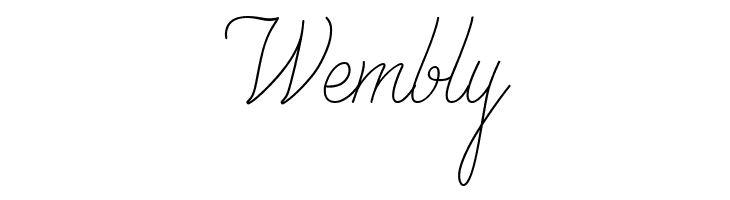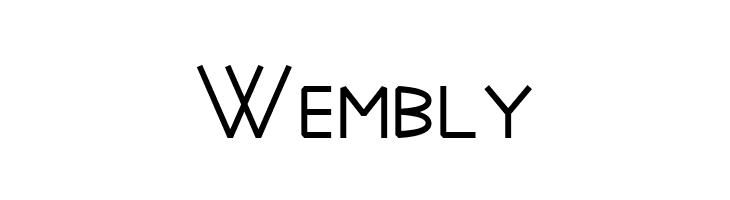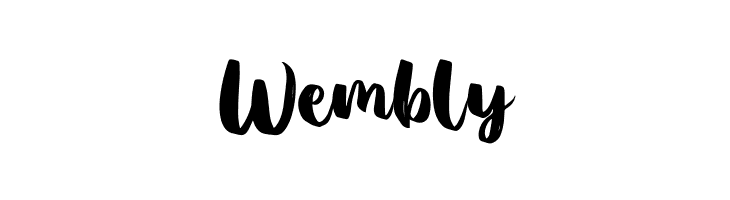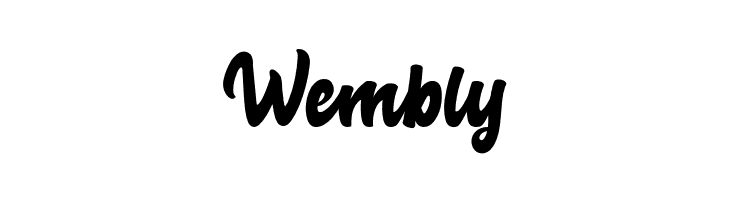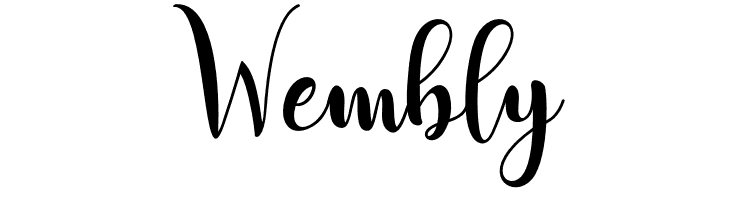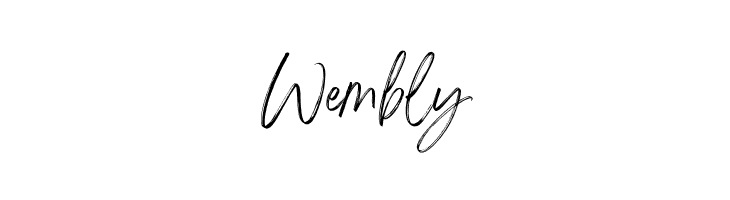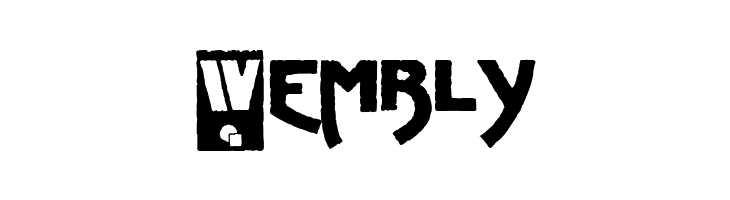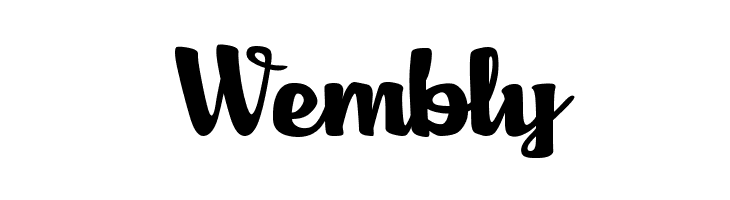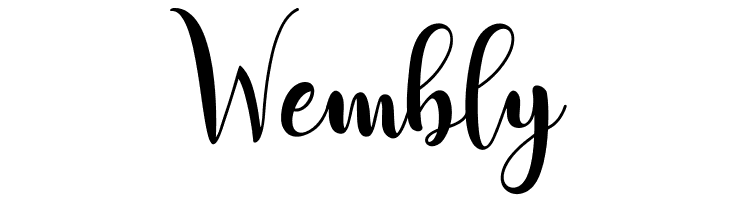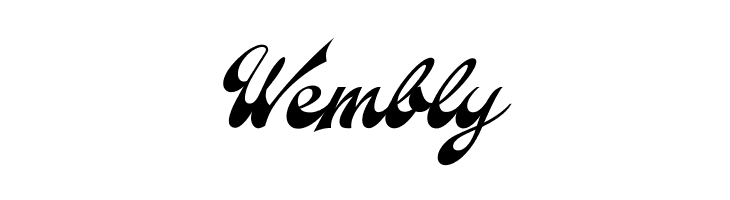
A bold, expressive script font with flowing, cursive letterforms and dramatic flourishes.
A graceful and sophisticated script font with flowing, interconnected letters.
A flowing, cursive script font with elegant loops and swashes.
An elegant script font with flowing, decorative strokes.
A bold, flowing script font with elegant curves and playful loops.
A bold, playful script font with smooth curves and dynamic flow.
A bold, geometric font with a blocky, digital style.
A flowing, cursive script font with elegant, connected characters.
A bold, playful italic font with rounded, flowing forms and a vintage flair.
A bold, playful font with rounded, thick strokes and a whimsical style.
A bold, gothic-inspired font with sharp, angular edges and high contrast.
A bold, dynamic script font with elegant, flowing cursive letterforms.
A graceful monoline script font with a handwritten style.
A bold, elegant script font with flowing, connected characters.
A bold, flowing script font with elegant curves and connected strokes.
A bold, modern sans-serif font with clean lines and balanced spacing.
A bold, flowing script font with elegant curves and dramatic swashes.
A bold, expressive handwritten font with a playful and artistic style.
A graceful and flowing script font with elegant curves.
A casual, handwritten script font with fluid strokes and medium contrast.
A sophisticated and elegant script font with flowing, cursive letters.
An expressive, script-like font with a dynamic, hand-drawn appearance.
An elegant and artistic script font with flowing, intricate letterforms and decorative flourishes.
A futuristic, geometric font with bold, angular letterforms.
A graceful script font with flowing, cursive letters and elegant swirls.
A playful, hand-drawn font with bold, dynamic characters.
A bold, expressive handwritten font with dynamic brush strokes.
Casual, artistic handwritten script font.
A bold, brush-style font with dynamic, hand-painted strokes.
A flowing, cursive script font with elegant loops and swirls.
A bold, expressive script font with a hand-drawn, dynamic style.